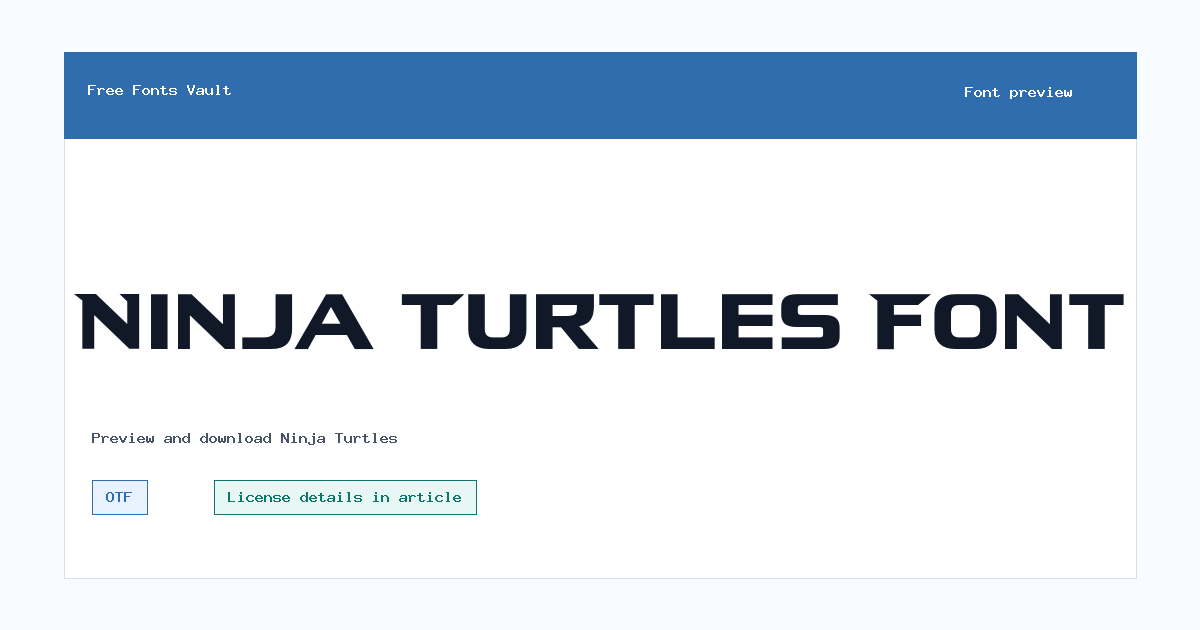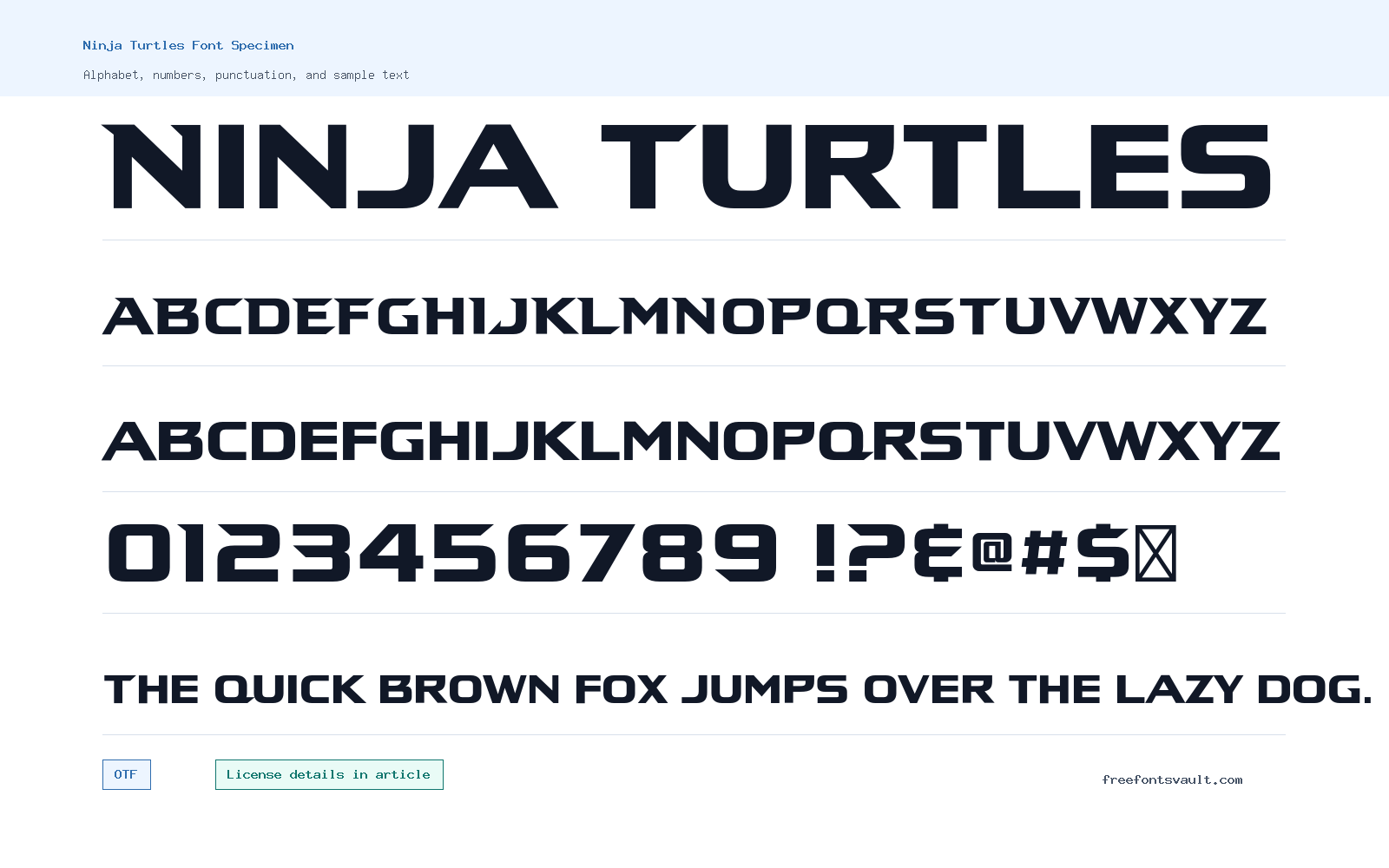
Ninja Turtles
Ninja Turtles font.
Ninja Turtles is a bold display font for short, energetic lettering. It works best when you need a punchy title, party graphic, thumbnail, sticker, or fan-style headline that should feel loud at first glance rather than quiet and text-heavy.
About Ninja Turtles Font
This kind of font is not meant for paragraphs. Keep it for short words, names, headings, badges, and poster-style lines. If you need supporting text, pair it with a plain sans serif so the decorative headline can do the visual work while the rest of the layout stays readable.
- Regular upright style with strong display character.
- Better for large titles than for small captions or long body text.
- Useful for testing fan-style graphics, birthday designs, thumbnails, and bold labels.
- Posters, stickers, banners, thumbnails, and party printables.
- Short themed headlines where impact matters more than paragraph readability.
- Pairing with a neutral body font for descriptions, dates, and small text.
Use it large, keep the phrase short, and avoid crowding the letters. If the title feels too dense, add spacing or reduce the number of words. For a cleaner finished layout, let Ninja Turtles handle the headline and use a simple companion typeface for dates, descriptions, buttons, and small print. For school, personal, or fan art use, keep the design clearly separate from protected logos and character artwork unless you already have permission.
Is Ninja Turtles good for body text?
No. It is better for short display text such as titles, labels, posters, and thumbnails.
Test your exact headline, numbers, punctuation, and any short phrase you plan to use. Large display fonts can change a lot depending on word length.
What should I pair with Ninja Turtles?
Use a plain sans serif for supporting text so the decorative headline stays readable and the rest of the design remains clean.